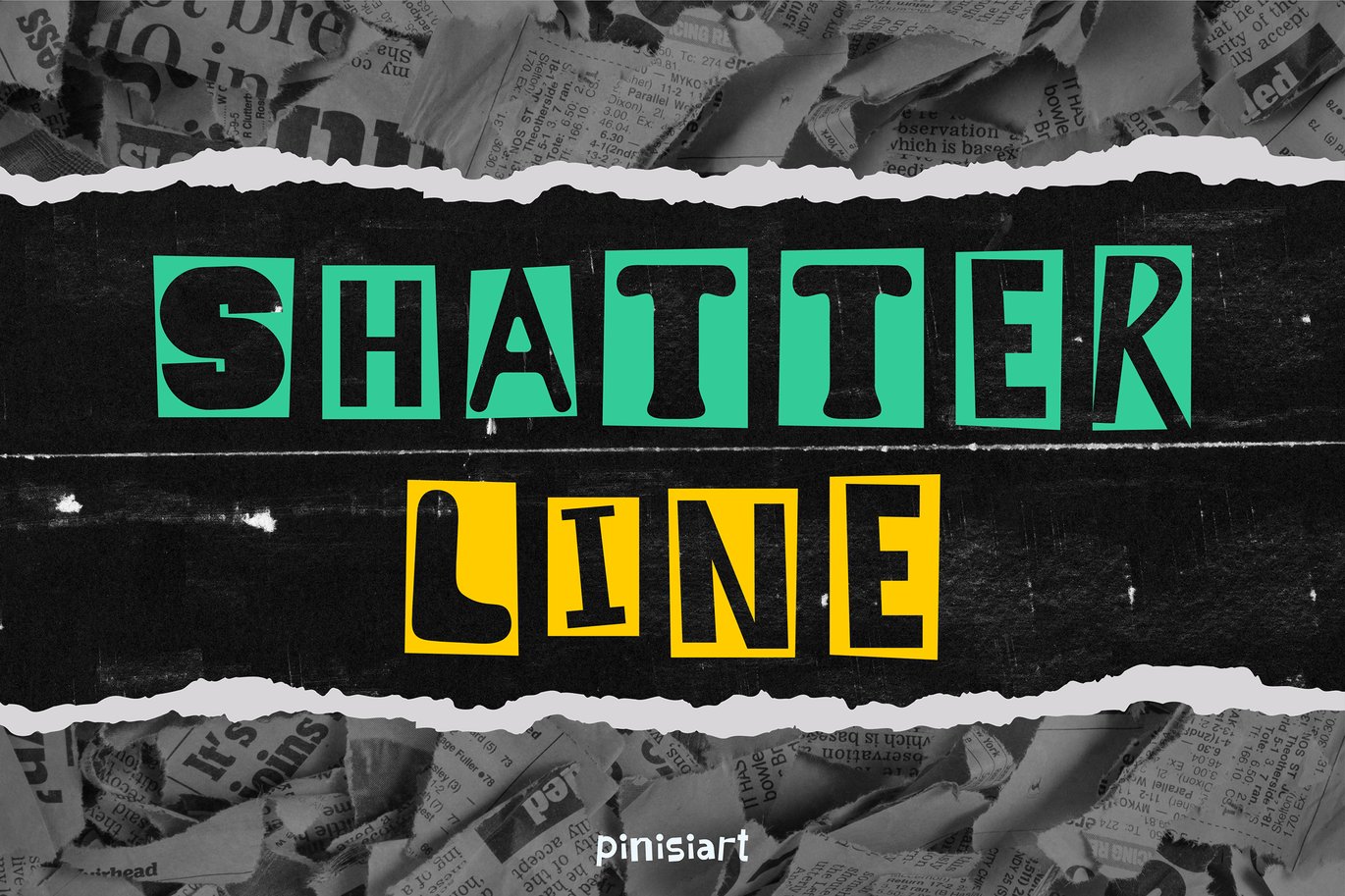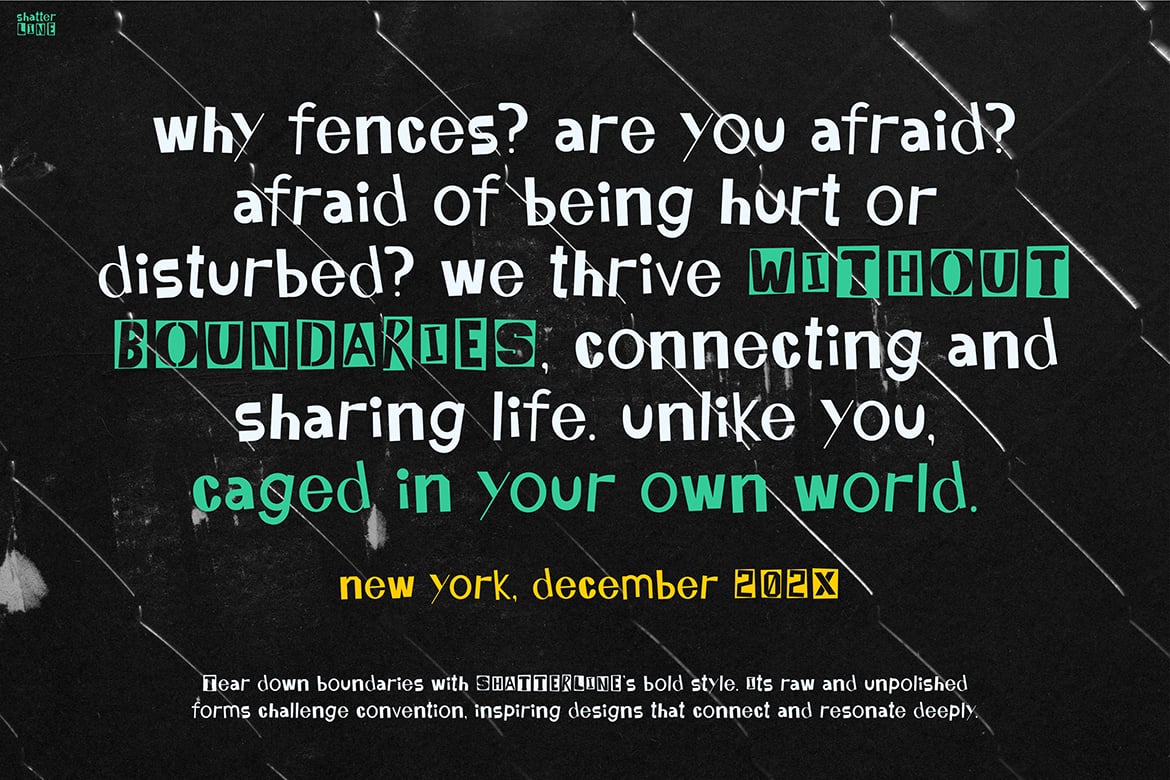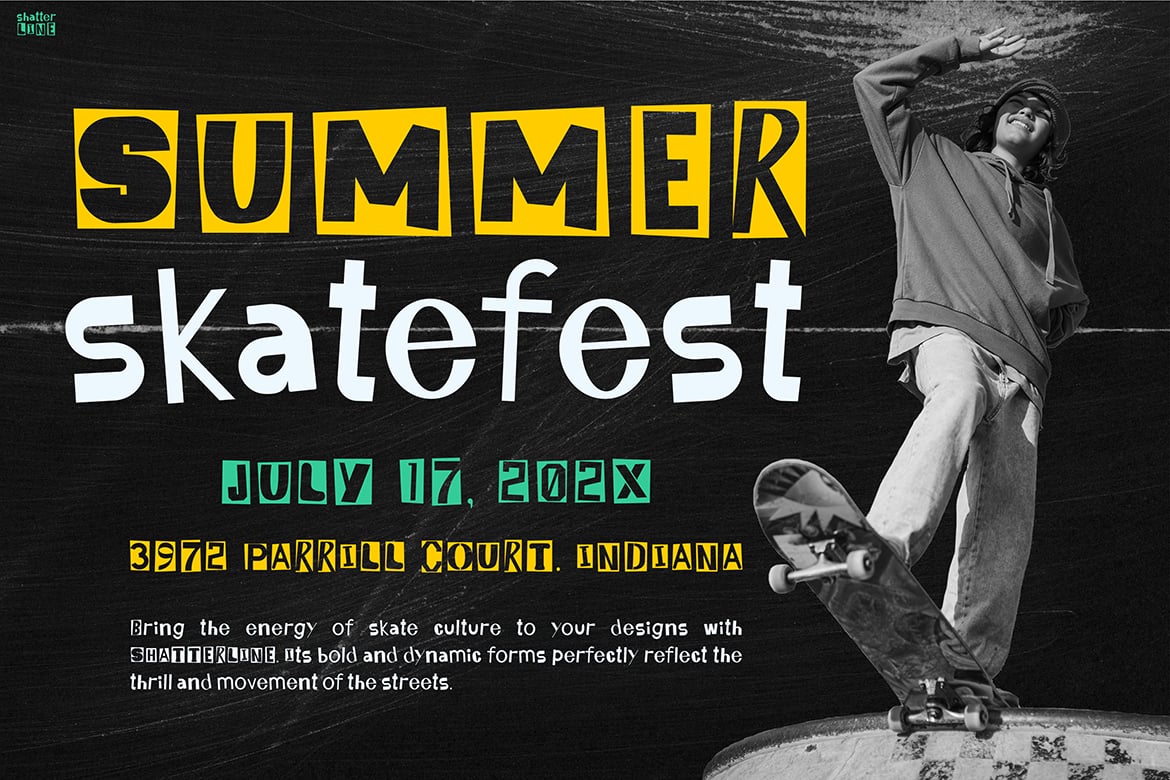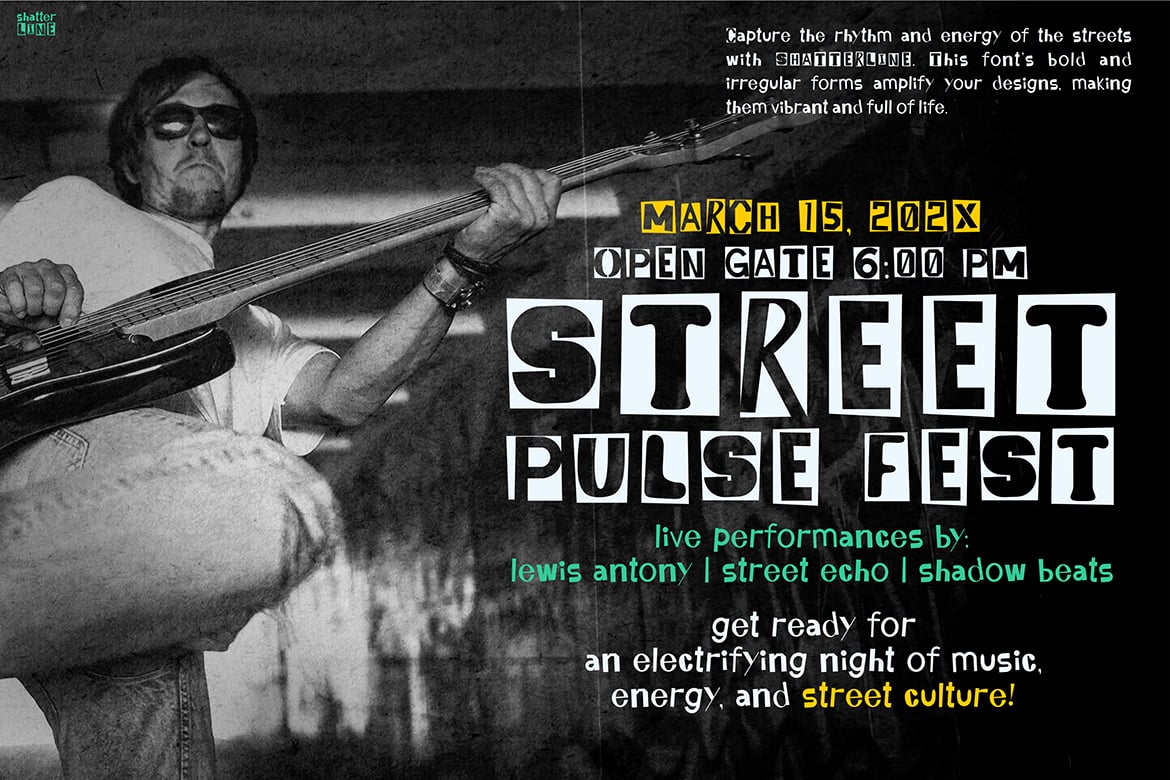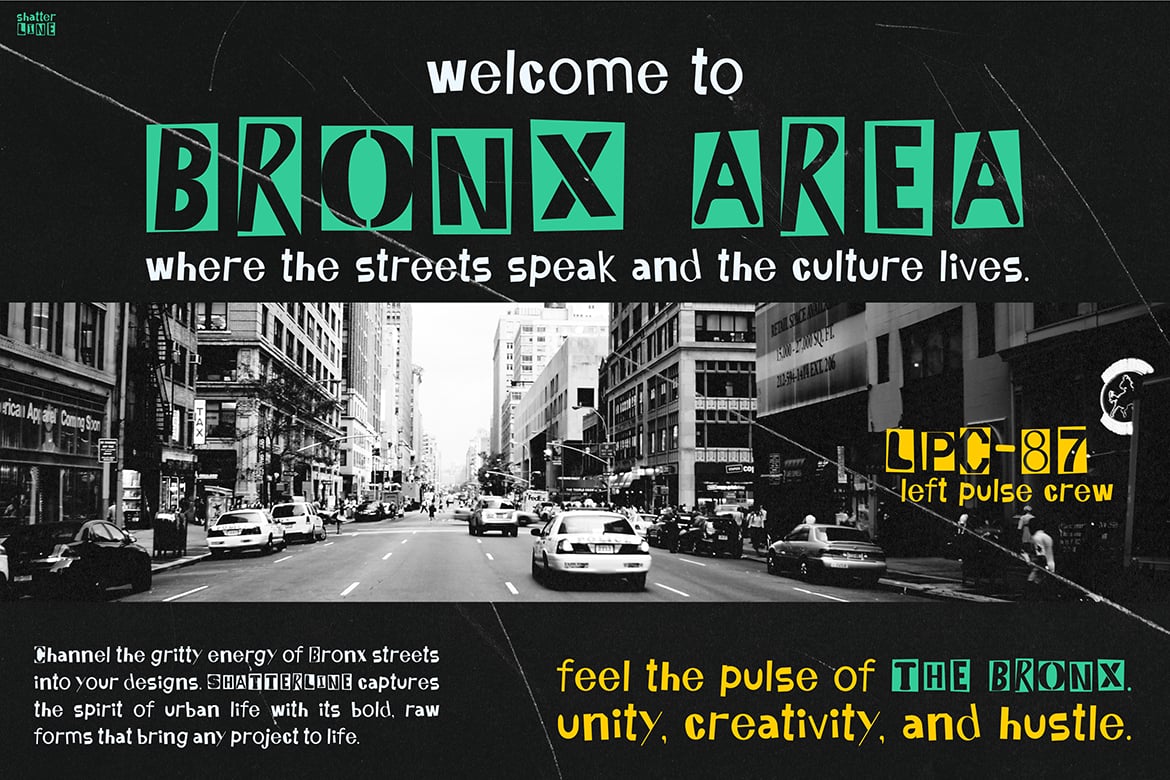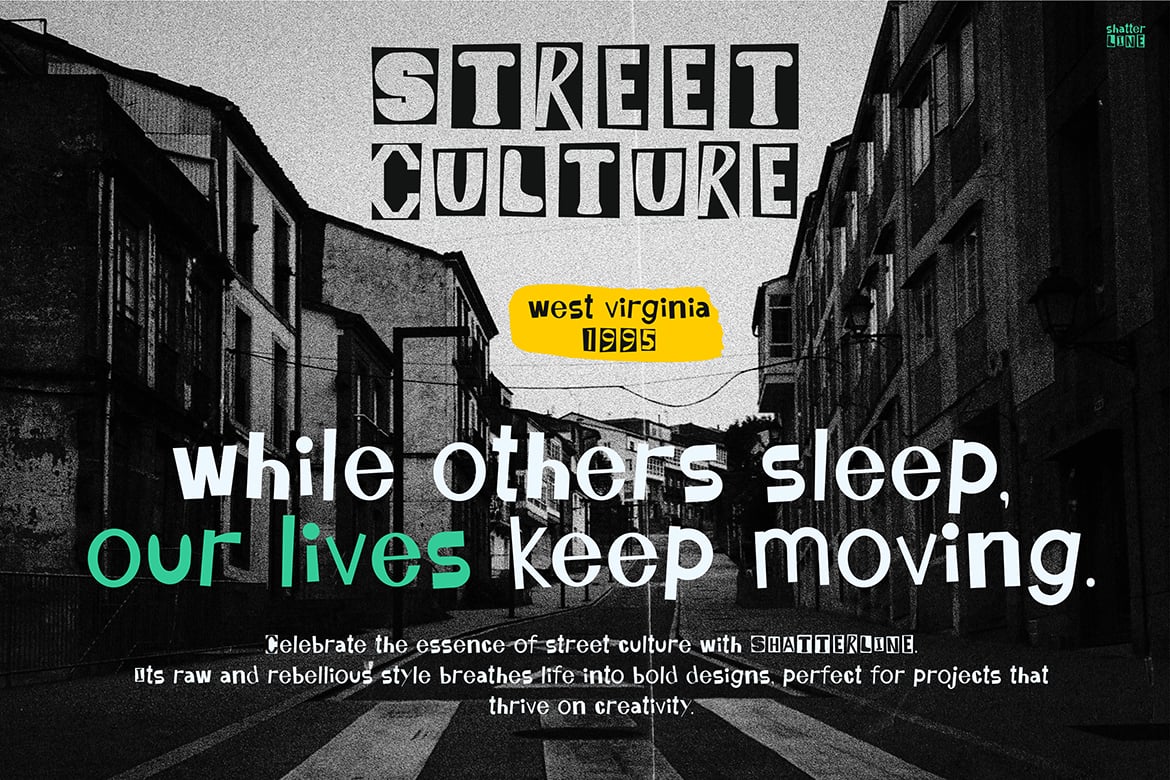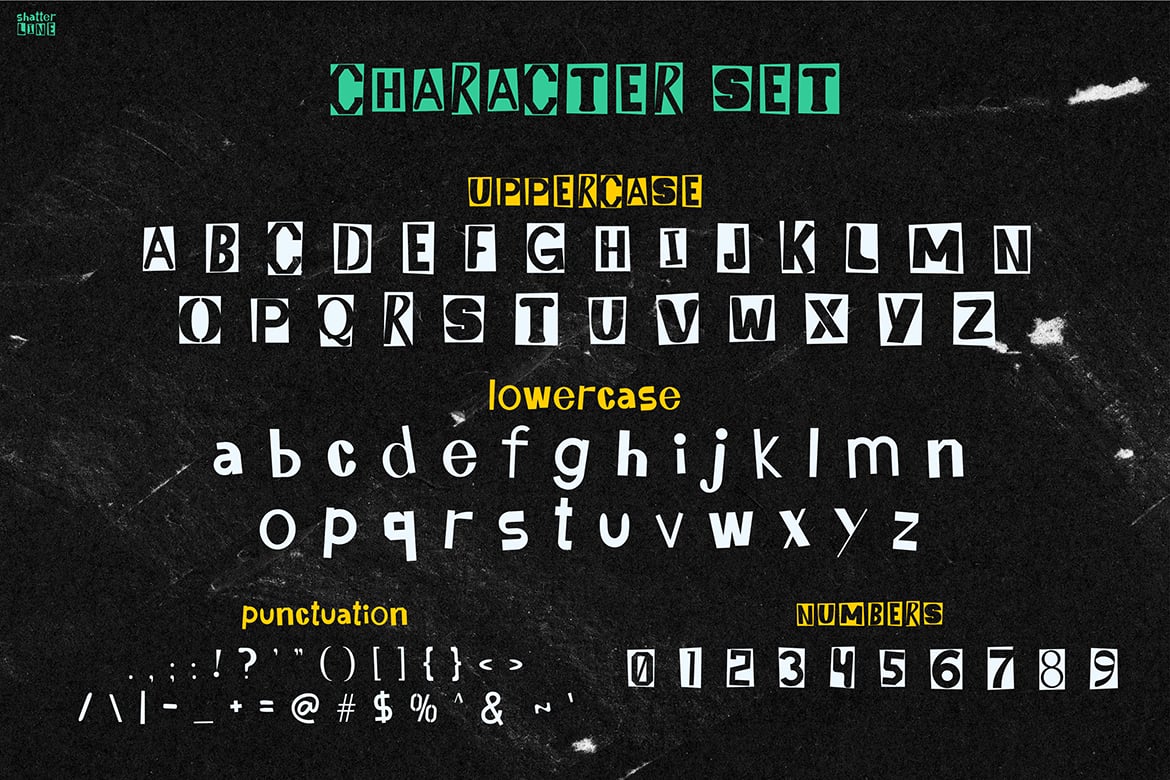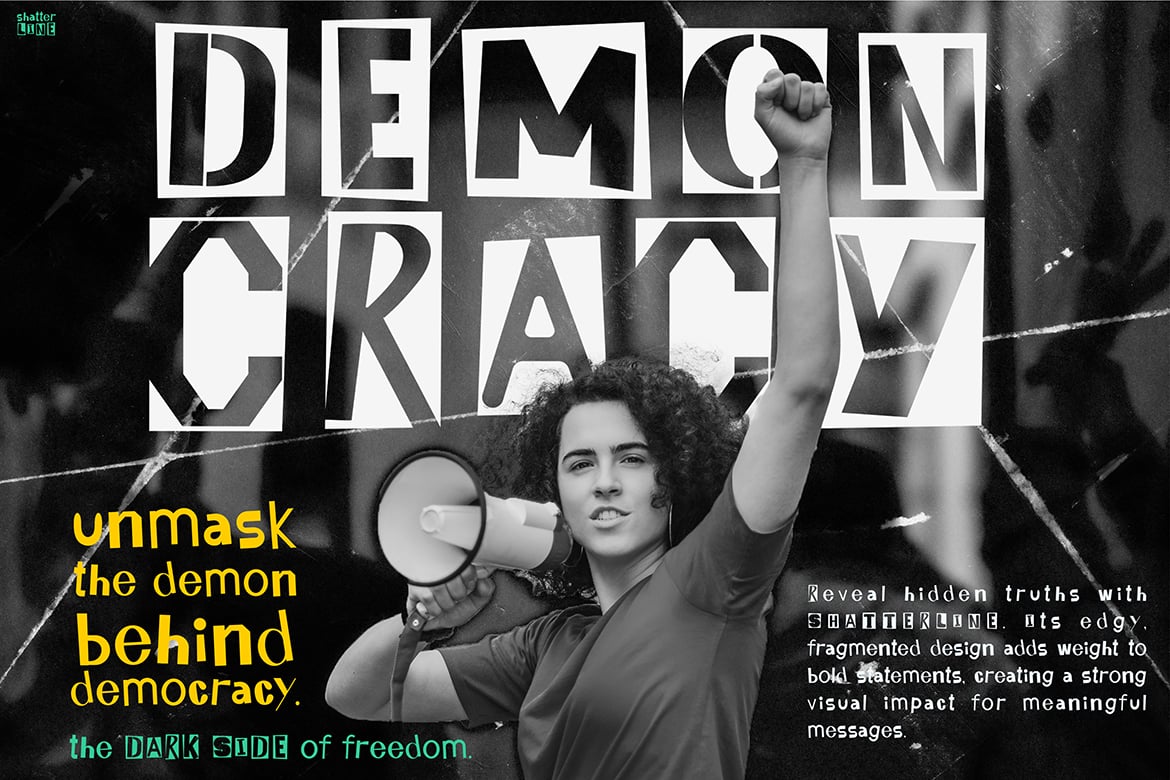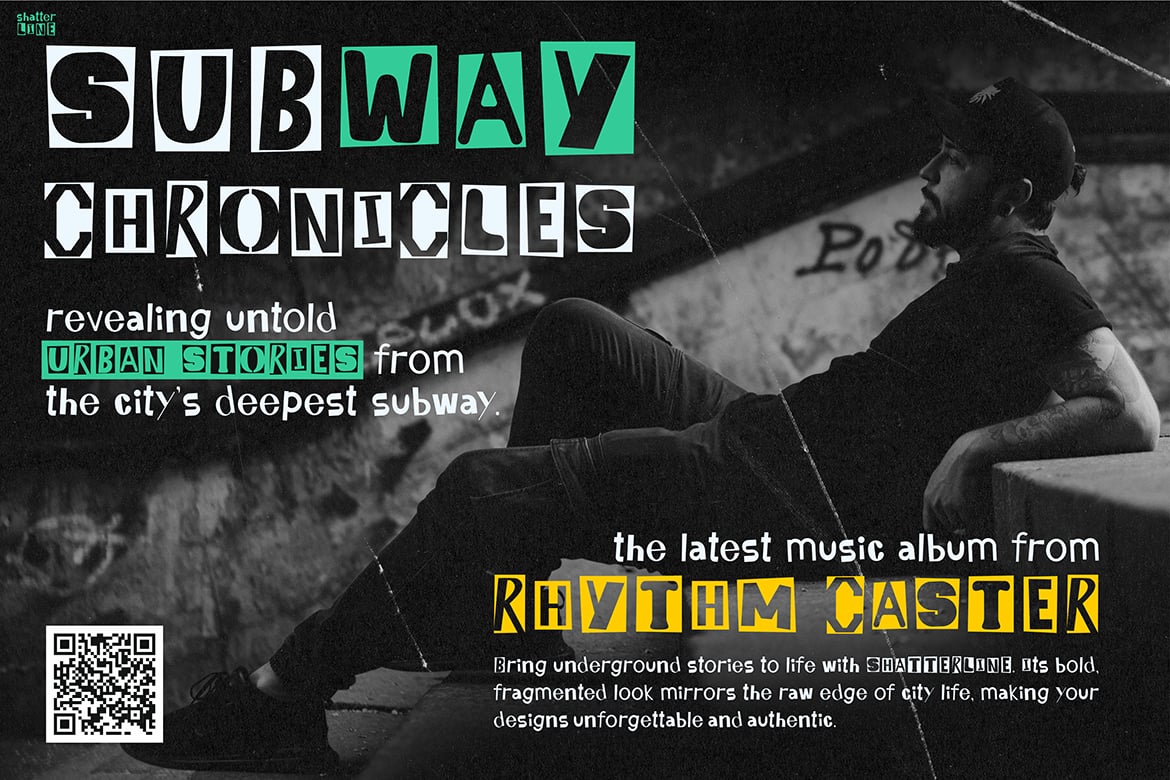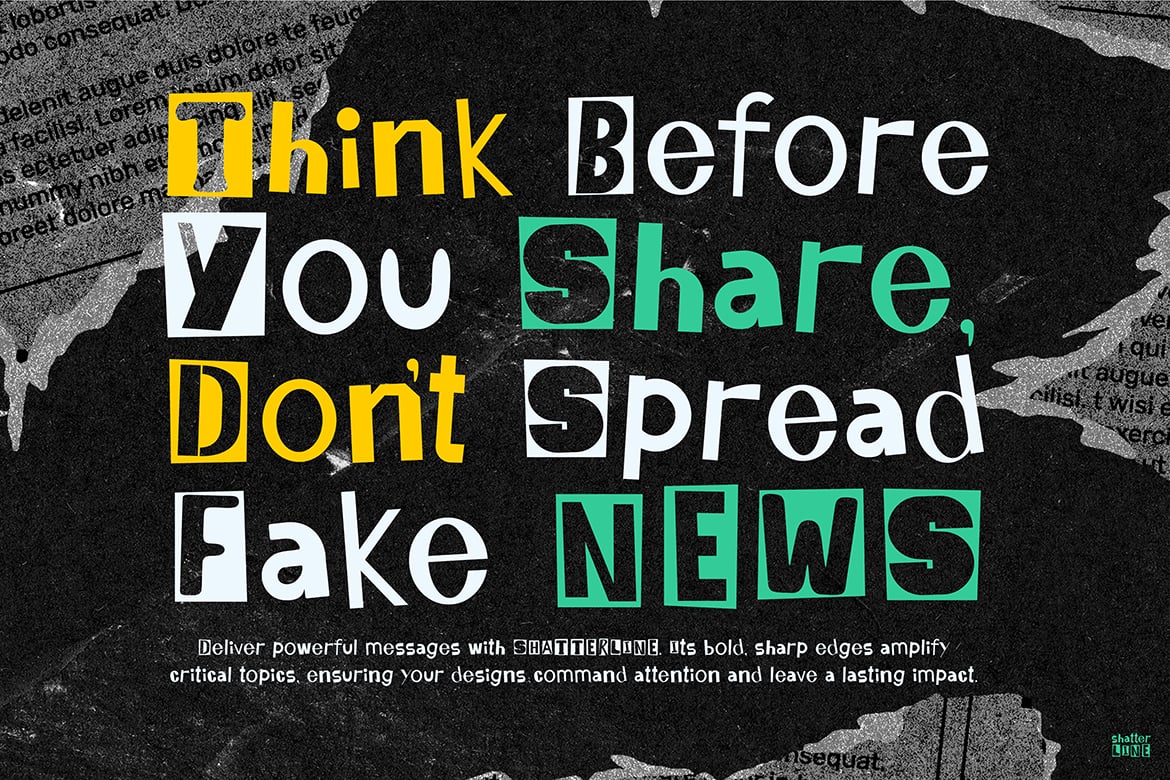
Punk Urban Font – Shatter Line
SHATTER LINE is a gritty, punk-inspired display sans-serif that captures the raw pulse of rebellion. Featuring irregular forms, layered cutout styles, and sharp contrast, this font echoes the attitude of zines, graffiti tags, and underground street culture.
Made for street festival posters, skater events, album art, urban apparel branding, and activist media, SHATTER LINE delivers high-impact visuals with an edge. Its energy is loud, mismatched, and intentionally disruptive—designed for nonconformist branding and creative anarchy.
The layered feel and rugged texturing mimic old-school punk flyers, yet its digital sharpness ensures it’s readable and effective across digital and print media alike.
SHATTER LINE isn’t clean—because your message shouldn’t be quiet. This is the font of underground movements, late-night streets, and counterculture expression. It makes your message look as raw and real as it feels.
- Disrupted Sans Serif Style – Sharp, layered, and rugged with a punk flyer vibe
- Uppercase, Lowercase, Numbers, and Symbols – Fully loaded for editorial and street campaigns
- Zine-Ready Grit – Textures and shapes that embrace chaos, not polish
- Perfect for Music, Skater, and Urban Culture – Built for subculture movements and gritty branding
- Great on Black-and-White or Neon Palettes – Designed to pop on posters, packaging, and apparel
SHATTER LINE solves the need for grit without sacrificing clarity—it brings the chaos of the streets into controlled typographic rebellion.